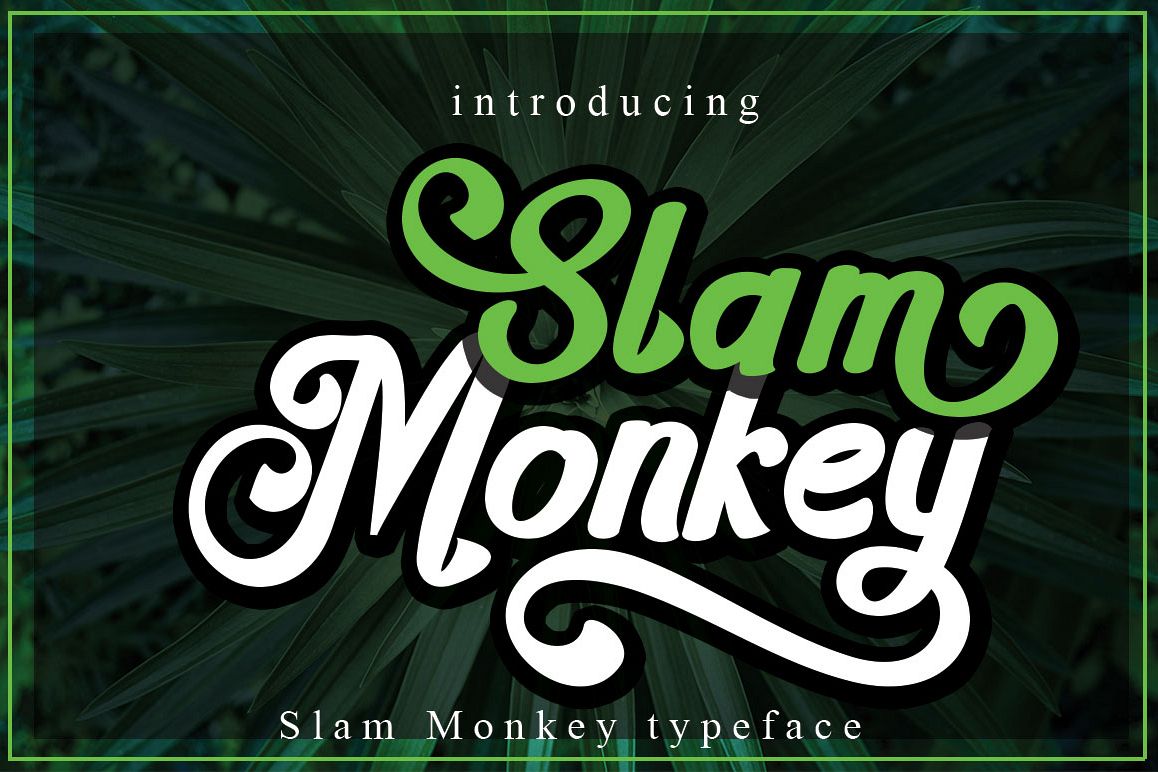
Slam Monkey
Slam Monkey This font was designed by handwriting, and it has a modern
and unique forms of calligraphy, the writing style is very natural and multiple
language support.